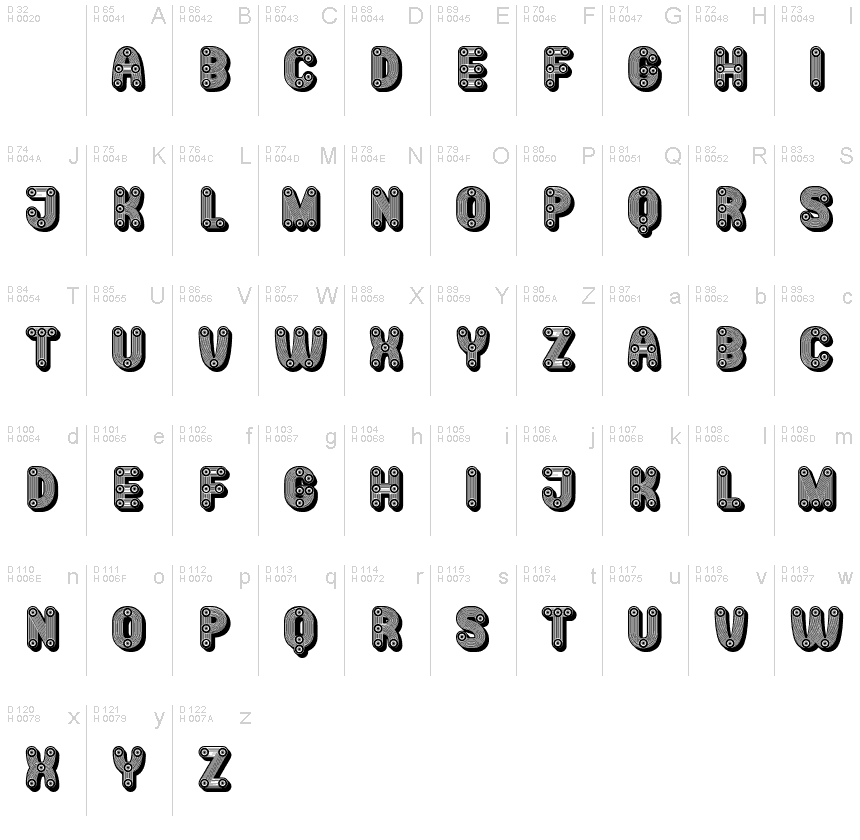
Mangalica Extravagant Black Regular
Mangalica Extravagant Black is a bold, decorative display font designed by Vladimir Nikolic. Its unique and extravagant style makes it perfect for eye-catching projects that need a touch of personality and creativity. This font is ideal for designing attention-grabbing logos, captivating headlines, stylish posters, and striking packaging designs. With its bold weight and decorative elements, Mangalica Extravagant Black will make your projects stand out from the crowd and leave a lasting impression on viewers. Let your imagination run wild with this extraordinary font that adds an element of extravagance to any design.